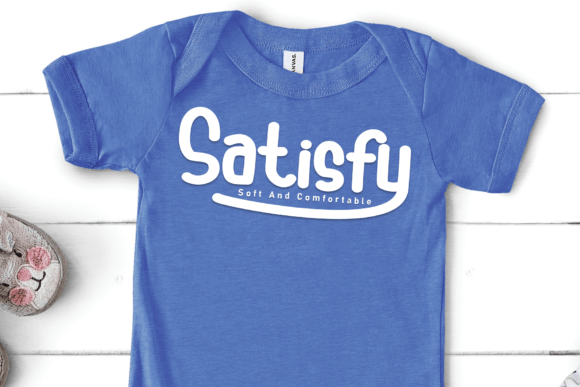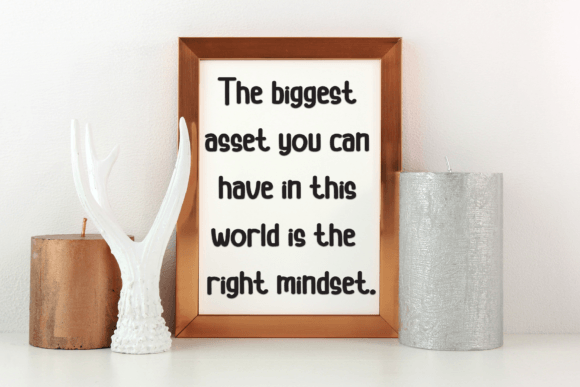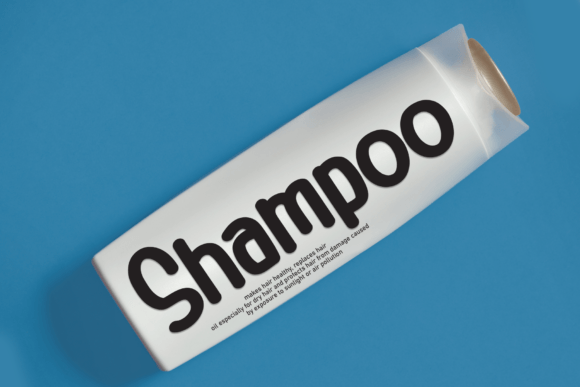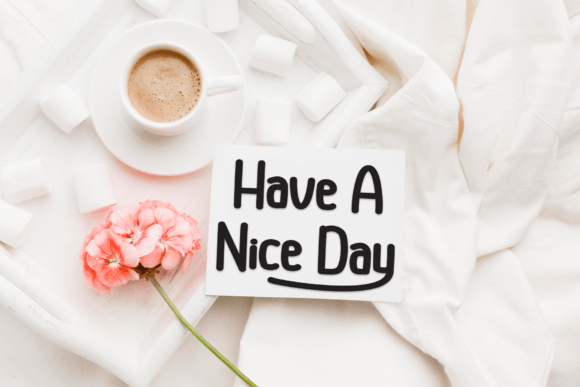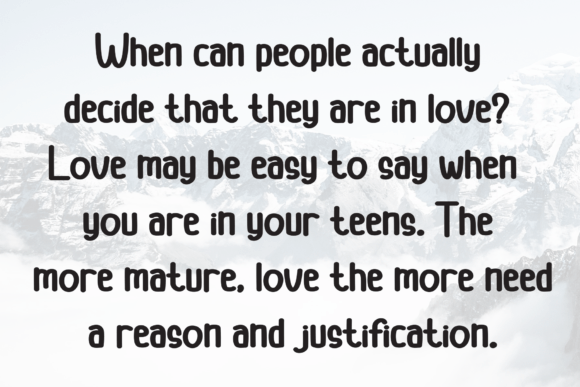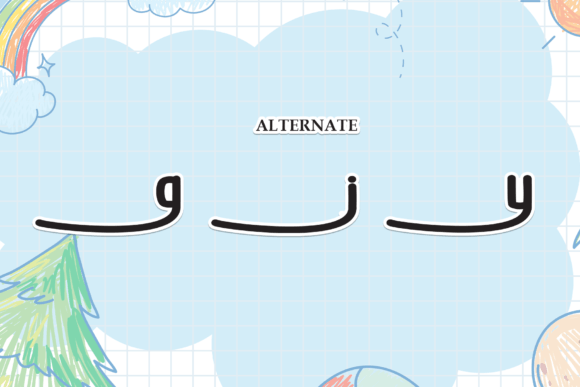
Introducing Drawing Font: The Sweet and Friendly Handwritten Display Font
Are you looking for a font that can add a touch of whimsy and fun to your designs? Look no further than Drawing Font, a sweet and friendly handwritten display font that’s perfect for a variety of creative projects. In this article, we’ll take a closer look at Drawing Font, its features, and how you can use it to elevate your designs.
What is Drawing Font?
Drawing Font is a beautiful, handwritten display font that’s designed to bring a sense of fun and playfulness to your designs. With its cute and charming lettering style, this font is ideal for creating eye-catching headings, titles, and text that will capture the attention of your audience.
One of the standout features of Drawing Font is its friendly and approachable feel. The font’s handwritten style gives it a personal and relatable touch, making it perfect for designs that require a human touch. Whether you’re creating wedding invitations, greeting cards, or social media graphics, Drawing Font is sure to add a touch of warmth and personality to your designs.
Key Features of Drawing Font
So, what makes Drawing Font so special? Here are some of its key features:
- Handwritten style: Drawing Font features a beautiful, handwritten style that’s perfect for creating unique and personalized designs.
- Cute and fun: This font is designed to be fun and playful, making it ideal for designs that require a lighthearted touch.
- Display font: Drawing Font is a display font, which means it’s perfect for creating headings, titles, and text that will stand out.
- Easy to read: Despite its playful style, Drawing Font is easy to read, making it perfect for designs that require a clear and concise message.
Use Cases for Drawing Font
So, how can you use Drawing Font in your designs? Here are some ideas to get you started:
- Wedding invitations: Drawing Font is perfect for creating beautiful and unique wedding invitations that will set the tone for the big day.
- Greeting cards: This font is ideal for creating fun and playful greeting cards for birthdays, holidays, and other special occasions.
- Social media graphics: Drawing Font can add a touch of personality to your social media graphics, making them more engaging and shareable.
- Branding and packaging: This font can also be used for branding and packaging designs, adding a touch of whimsy and fun to your brand’s identity.
Tips for Using Drawing Font
Here are some tips for using Drawing Font in your designs:
- Use it sparingly: Drawing Font is a display font, so it’s best to use it sparingly to create emphasis and visual interest.
- Pair it with other fonts: This font pairs well with other fonts, so don’t be afraid to experiment with different combinations to create a unique look.
- Experiment with colors: Drawing Font looks great in a variety of colors, so don’t be afraid to experiment with different hues and shades to find the perfect look for your design.
Drawing Font is a sweet and friendly handwritten display font that’s perfect for adding a touch of fun and whimsy to your designs. With its cute and charming lettering style, this font is ideal for creating eye-catching headings, titles, and text that will capture the attention of your audience. Whether you’re a designer, crafter, or DIY enthusiast, Drawing Font is a great addition to your font collection.